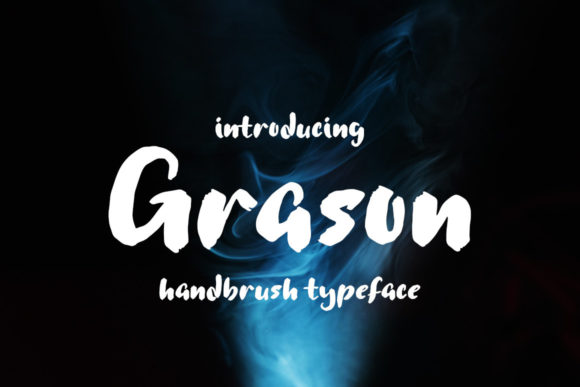
Dive into the world of Grason, a captivating display font crafted by the ingenious minds at type.on.studio. This remarkable creation is a testament to the power of typography, blending a bold, brushed stroke with a casually adaptive spirit. Grason effortlessly complements a myriad of imaginative design endeavors, making it an essential tool for creative professionals and font enthusiasts alike. Let your imagination soar as you explore the endless possibilities that Grason presents.
Step into a world where every letter exudes personality and commands attention. Grason's bold, thick lettering is sure to make a lasting impression, whether it's adorning your latest YouTube Shorts video, showcasing your brand's identity, or adding a touch of flair to your personal projects. Its carefully crafted strokes and dynamic brushwork create a visually striking effect that will leave your audience captivated.
With Grason, versatility reigns supreme. It seamlessly adapts to a vast spectrum of design styles, from sleek and modern to playful and whimsical. Its inherent adaptability makes it the perfect choice for a diverse range of applications, including logos, posters, social media graphics, packaging designs, T-shirt designs, and so much more. The only limitation is your own creativity. Embrace the boundless possibilities and let Grason be your artistic compass.
Beyond its aesthetic appeal, Grason possesses an inherent practicality that enhances the user experience. Its meticulously crafted glyphs and smooth curves ensure optimal readability, even at smaller sizes. This makes it an ideal choice for both print and digital projects, where clarity and impact are paramount. Harness the power of Grason to communicate your message with crystal clarity and leave an indelible mark on your audience's minds.